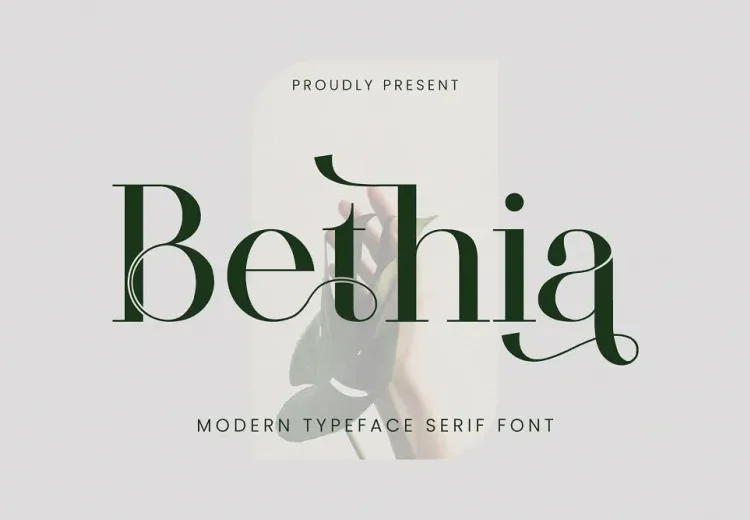
Bethia Font
Bethia is a modern serif font characterized by its refined and approachable design. Its elegant and stylish alternations and ligatures make it an excellent choice for a variety of design projects. Whether you’re working on invitation cards, company logos, movie titles, business cards, book titles, or branding materials, Bethia’s sophisticated and versatile appearance will complement your work beautifully.